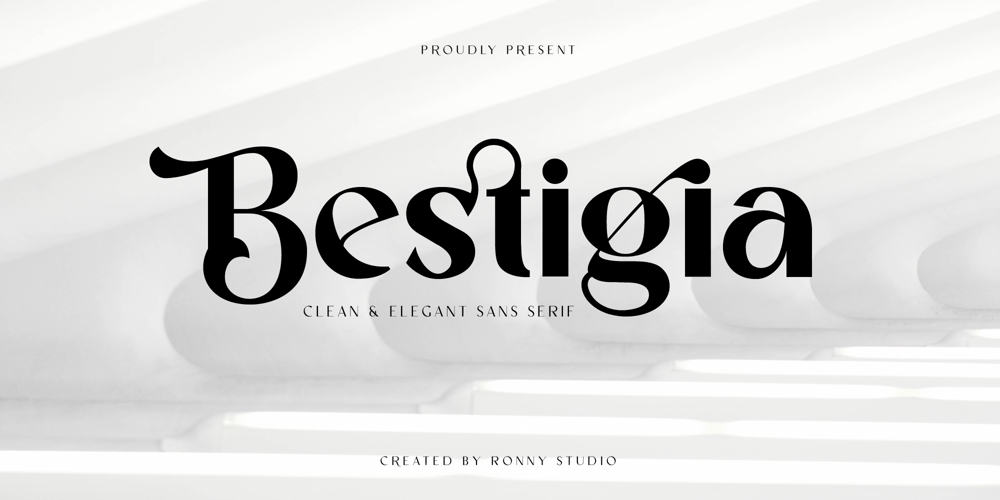
Bestigia Font Family was designed by Rony Rizki Jaya and published by Ronny Studio. Bestigia contains 4 styles and family package options. Bestigia is an elegant and chic Sans Serif font. This font is impressive and features an clean and elegant, professionally shaped font, and as a result, it will easily match a variety of creations that require a different touch. Add it with confidence to your projects, and you’ll love the results. This typeface is perfect for elegant logos, branding, travel promotions, layout magazines, beauty products, product packaging, quotes, or simply as a stylish text overlay onto any background image.4 Style Font : Regular Italic Bold Bold Italic Bestigia Features : Uppercase Lowercase Numbers & Punctuation Alternates Ligatures Multilingual Support Simple installation All of features and special characters of this font are included in one file. So it is easy to accessed by using program or software that support the opentype like Adobe Illustrator, Adobe Photosop, and Adobe Indesign). This font also very easy to use because compatible for all software even for non-opentype supported. Please comment us if you have any questions Thank you and have a nice day.thank you